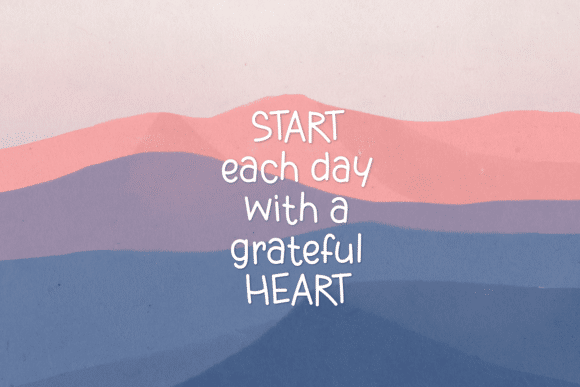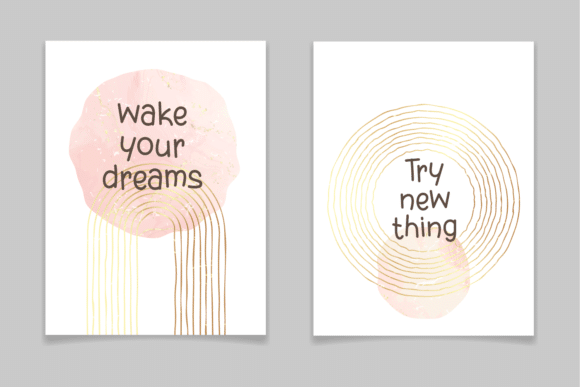
Embrace the Blush Font
Embrace The Blush is a whimsical and cute handwritten font that you can use for all chalkboard quotes or teaching material! Its authentic look will add a personal and realistic feel to your designs.